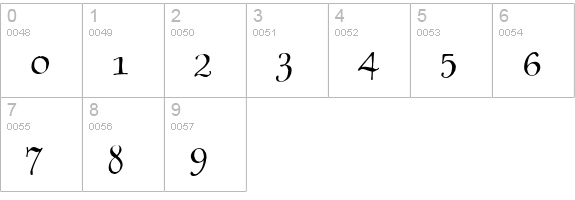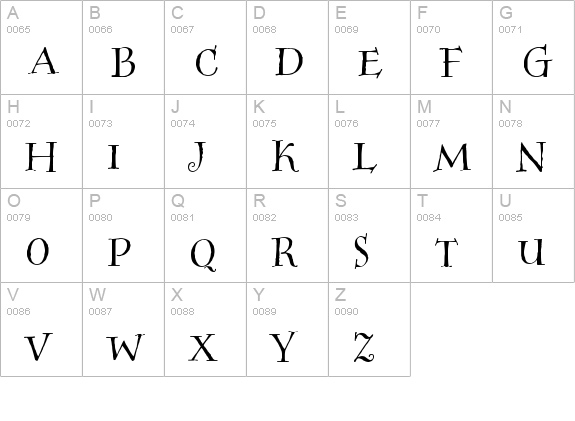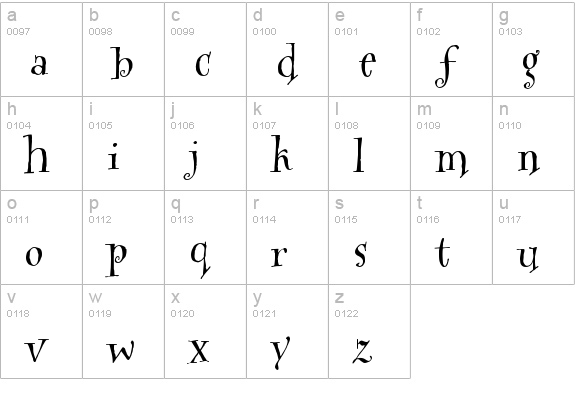
HogwartsWizard Bold is a strong, high-contrast variant in the HogwartsWizard typeface family \xE2\x80\x94 well suited to headlines, attention-grabbing titles, and strong calls-to-action.
HogwartsWizard Bold font is a magical and enchanting typeface that will transport you to the world of wizardry and wonder. With its bold and striking design, this font is perfect for creating eye-catching titles, headlines, and logos that will captivate your audience. The intricate details and flourishes of HogwartsWizard Bold add a touch of elegance and sophistication to any project. What sets HogwartsWizard Bold apart is that it is not only visually stunning, but also completely free to download at FontsMarket.com. This means that you can unleash your creativity and bring your design ideas to life without any cost. Whether you're working on a poster, website, or branding project, HogwartsWizard Bold will help you make a bold statement and stand out from the crowd. So why wait? Download HogwartsWizard Bold today and let your imagination soar!